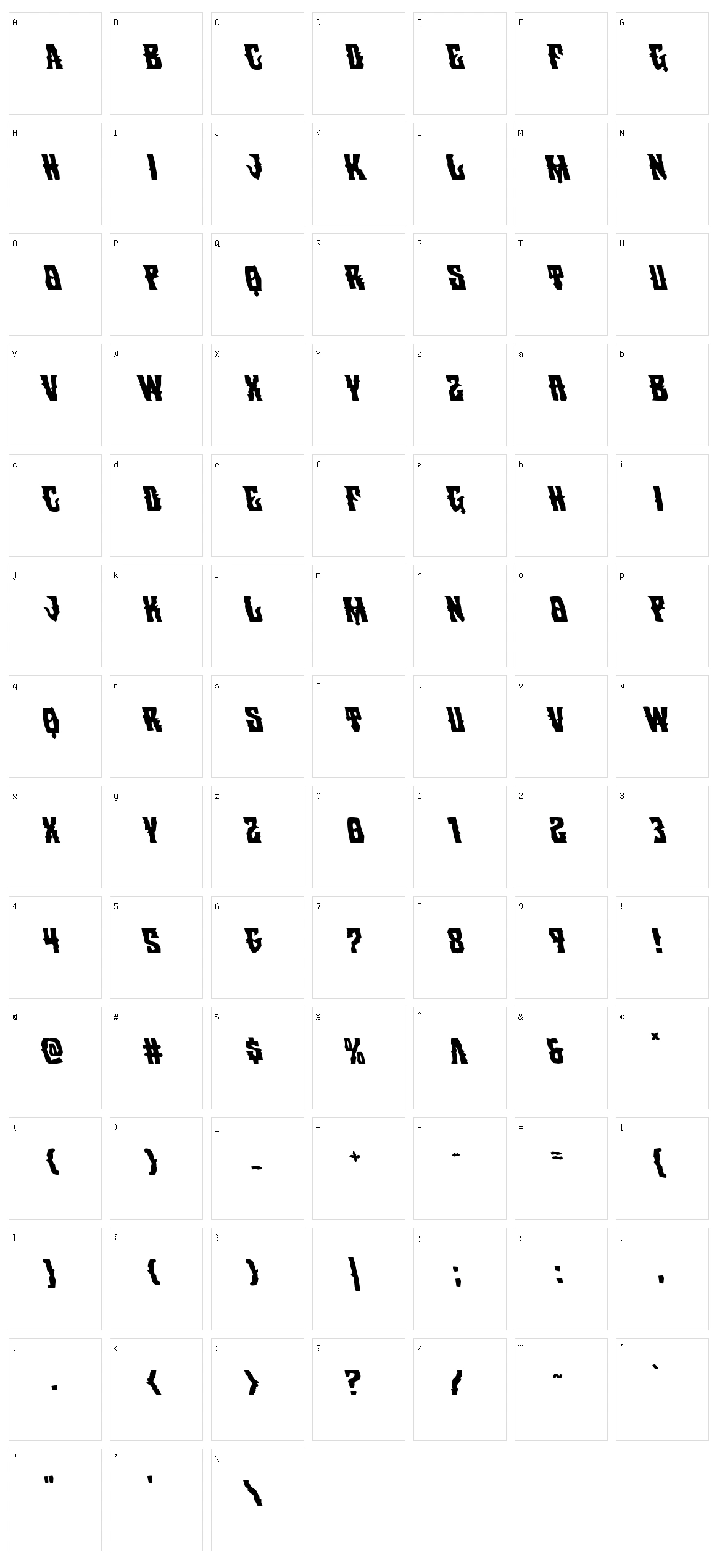
The free font Warlock's Ale is carefully designed by Iconian Fonts, showcasing a thoughtful balance of creativity and usability and falls under the Horror font style. When you download the ZIP file, it contains only 353.07 KB of font files, making it lightweight and quick to download. Please review the license details below to understand permitted usage and distribution rights. If license information is not available, we recommend using this font for personal projects only or contacting the author directly for commercial usage permissions.
This font comes with the following 12 versions: Regular, Italic, Condensed, Condensed Italic, Expanded, Expanded Italic, 3D, 3D Italic, Rotated, Rotated 2, Rotalic and Leftalic.